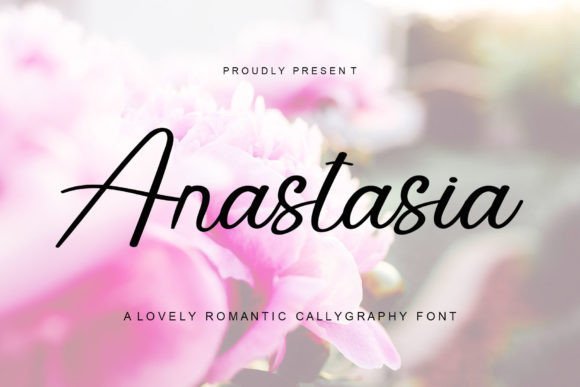
The Perfect Touch: Discovering the Delightful Anastasia Font
Have you ever sat down with a blank piece of paper and a pen, feeling the urge to create something beautiful and personal? Maybe you’re planning a wedding, or simply want to express your love and gratitude to someone special. Whatever the occasion, you’re likely to want your words to shine with warmth and character. That’s where the lovely Anastasia Font comes in – a sweet and friendly handwritten font that’s perfect for adding a personal touch to your designs.
As a designer, you know that the right font can make all the difference in capturing the essence of a moment or message. That’s why the Anastasia Font is such a valuable asset in your creative toolkit. With its fresh and casual feel, it’s ideal for writing wedding invitations, cards, or any other design that needs a lovely touch. Whether you’re a seasoned pro or just starting out, the Anastasia Font is sure to bring a smile to your face and a touch of elegance to your work.
Anastasia Font Key Features
- Font Family: Anastasia is a typeface with multiple weights and styles, including regular, italic, bold, and bold italic.
- Unique Characteristics: Anastasia features a distinctive, elegant design with a mix of geometric and organic elements, making it suitable for a variety of applications, including logos, advertising, and editorial content.
- Language Support: Supports a wide range of languages, including Latin, Cyrillic, and Greek scripts, making it a versatile choice for multilingual projects.
- Weight and Width: Available in a range of weights, from light to bold, and widths, including condensed and extended styles, allowing for flexibility in design.
Anastasia Font Review
✨ The Anastasia Font is a beautiful, elegant script font that is perfect for those looking to add a touch of sophistication to their designs. The font features flowing connections between letters, making it ideal for titles, headings, and other display typography. The font also has a wide range of language support, making it a great choice for international designs.
✨ The font’s high-quality rendering and excellent legibility make it a great choice for both digital and print designs. The font also has a wide range of font weights and styles, allowing designers to customize their designs to suit their needs.
⚠️ The Anastasia Font can be quite busy and overwhelming when used in large blocks of text. This can make it difficult to read and understand the content. Additionally, the font’s connections between letters can sometimes make it difficult to distinguish between individual letters.
⚠️ The font also has a relatively high x-height, which can make it difficult to use in designs with tight line spacing. This can cause the text to look crowded and hard to read.
The Anastasia Font is a beautiful and elegant script font that is perfect for adding a touch of sophistication to designs. While it has some limitations, the font’s high-quality rendering and excellent legibility make it a great choice for a wide range of designs. With careful use and customization, the Anastasia Font can be a powerful tool in any designer’s toolkit.
- Beautiful, elegant script font
- Flowing connections between letters
- Wide range of language support
- High-quality rendering and excellent legibility
- Wide range of font weights and styles